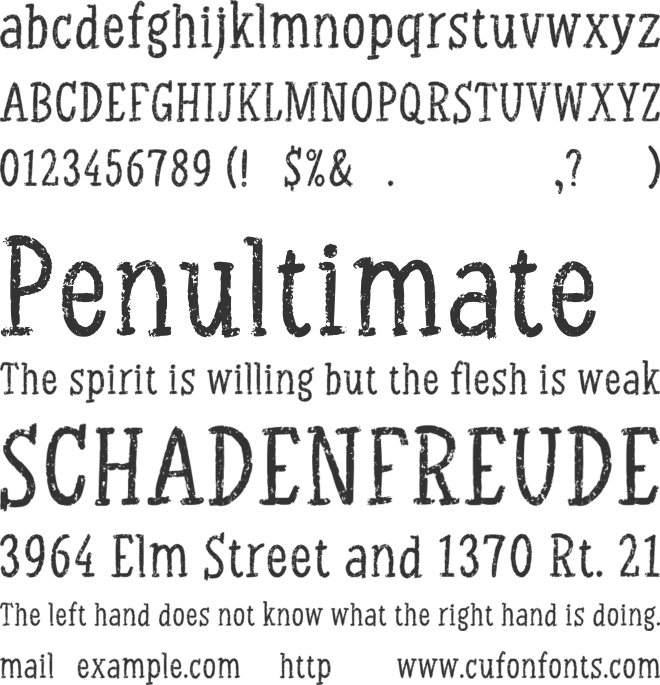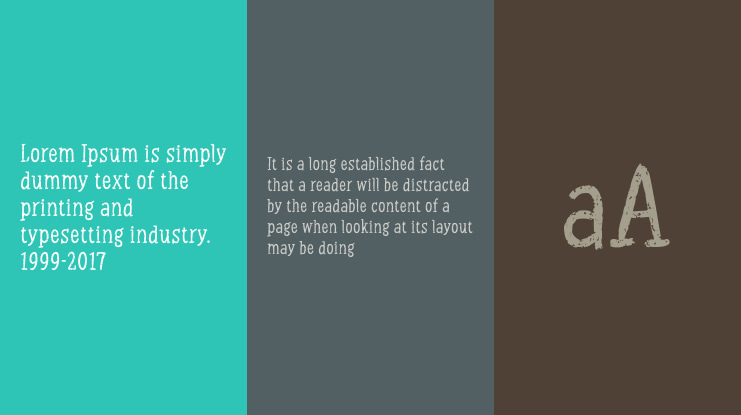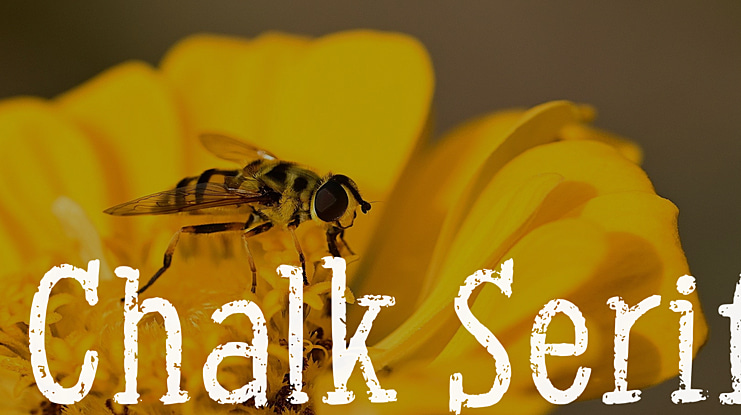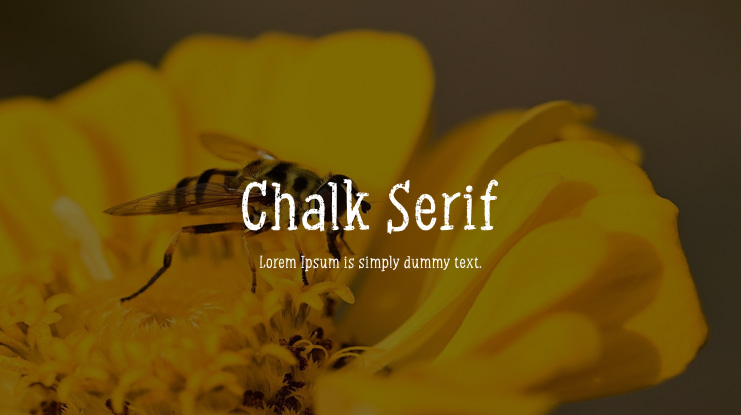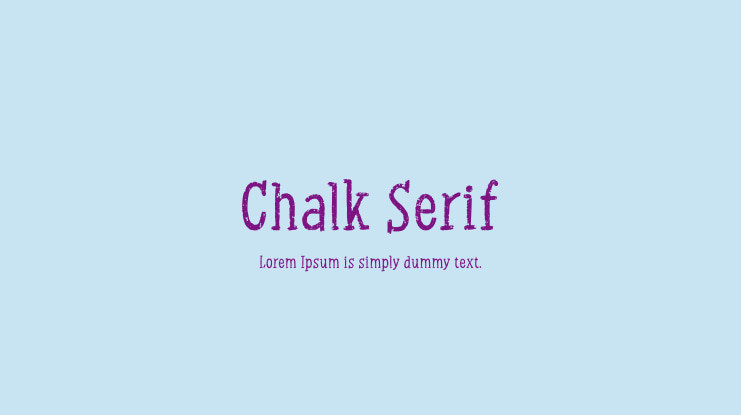
Chalk Serif Font
Alexey Gorka
Chalk serif is a handwritten typeface containing uppercase and lowercase characters, numerals and punctuation marks. It should be good for menus, signs, posters, prints, inspirational quotes.